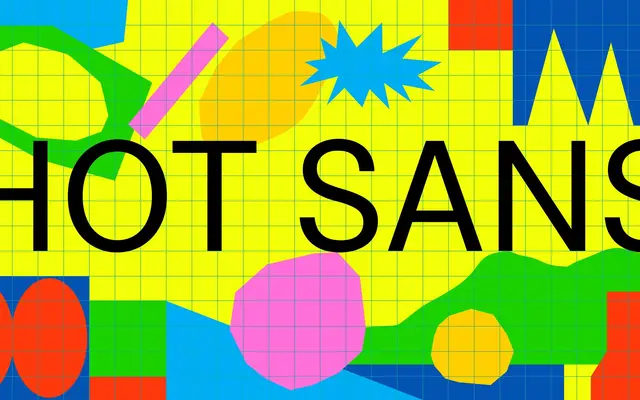
Hot Sans
Hot Sans is a clean grotesque sans-serif offered in 12 styles, spanning a range that includes at least a Thin weight. The page demonstrates its performance across display and text sizes, showing consistent rhythm and legibility from large custom settings down to 35px running text. At €840 for the complete family, it sits in the mid-range for independent foundry pricing.
The page presents a clean, upright sans-serif with grotesque proportions and a neutral character, consistent with the grotesque subcategory. No serif, script, or other distinguishing features are evident.